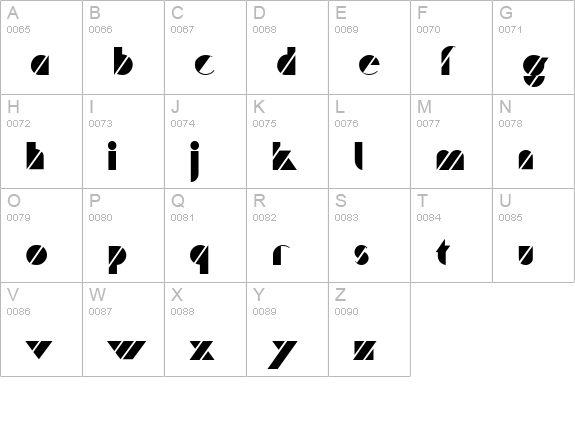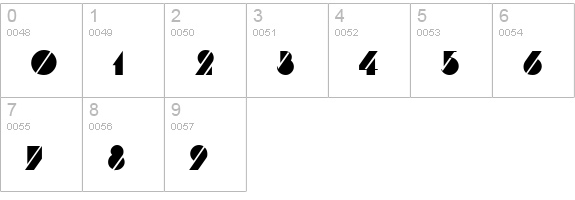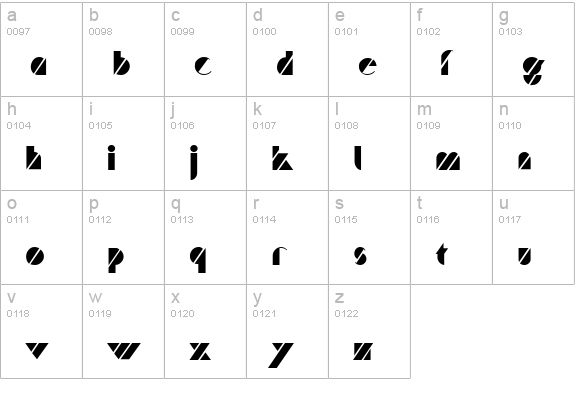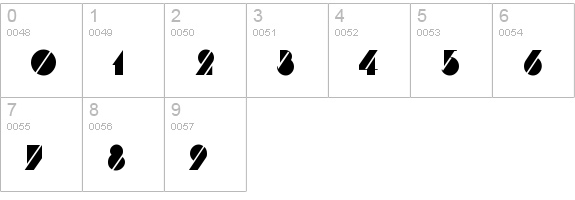
Cane Normal Font Details
Cane Normal is the standard, neutral variant in the Cane typeface family \xE2\x80\x94 well suited to general body text, paragraphs, and standard typographic work.
Cane Normal is a versatile and elegant font that exudes sophistication and style. With its clean lines and modern aesthetic, this typeface is perfect for a wide range of design projects, from branding to editorial design. The balanced combination of curves and straight lines gives Cane Normal a timeless appeal that is both classic and contemporary. One of the best features of Cane Normal is that it is available for free download at FontsMarket.com. This means that you can easily access this high-quality font without any cost, making it a valuable addition to your font library. Whether you're creating a logo, poster, or website design, Cane Normal offers a professional and polished look that will elevate your work to the next level. Don't miss out on the opportunity to enhance your designs with Cane Normal. Download this stunning font for free at FontsMarket.com and explore the endless creative possibilities it has to offer.